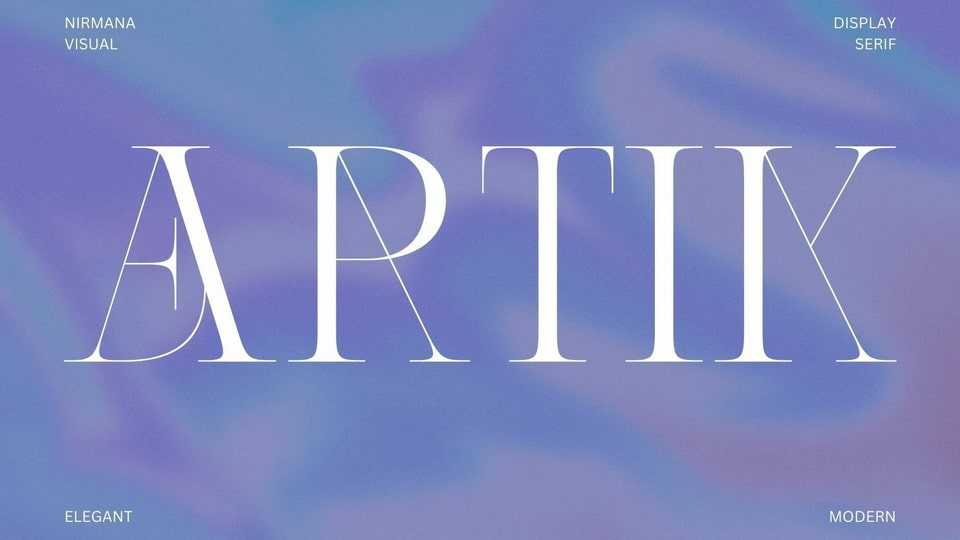
Download Artik font, an exquisite serif display typeface. Artik offers beautiful typographic harmony for a diversity of design projects, including logos and branding, social media posts, advertisements, and product designs.